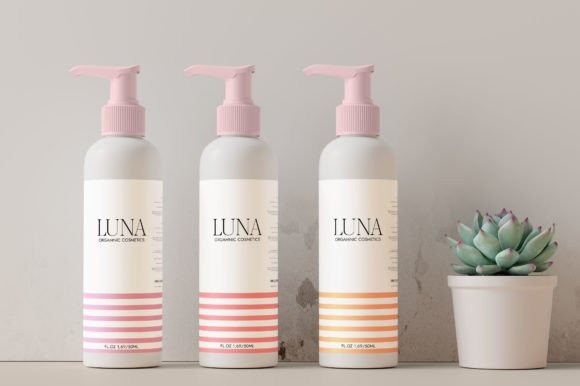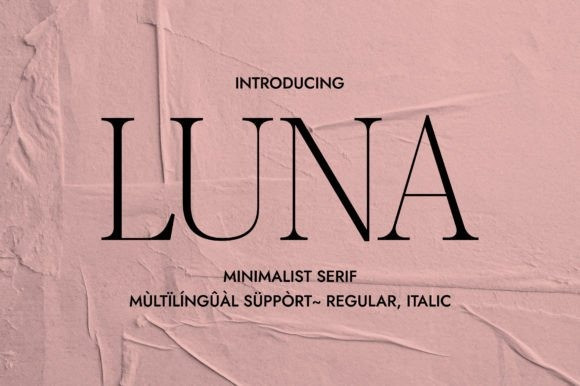
Luna Font
Luna Font is a romantic, minimalist, and elegant serif typeface. Its elegant appearance and precise glyphs structure make it the perfect choice when it comes to packaging design, fragrance design, titling, cosmetics design, website banners, and many more. Use it in your creations so you can notice how fastly it becomes one of your favorite fonts.